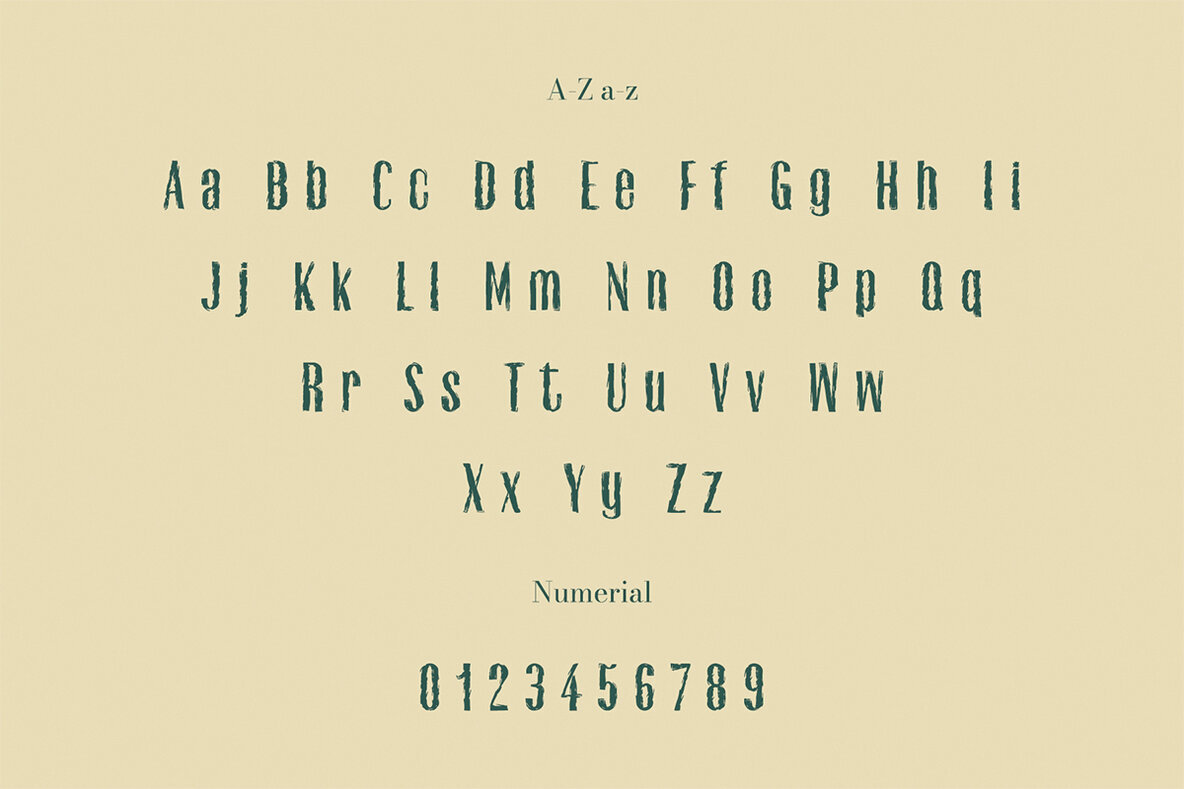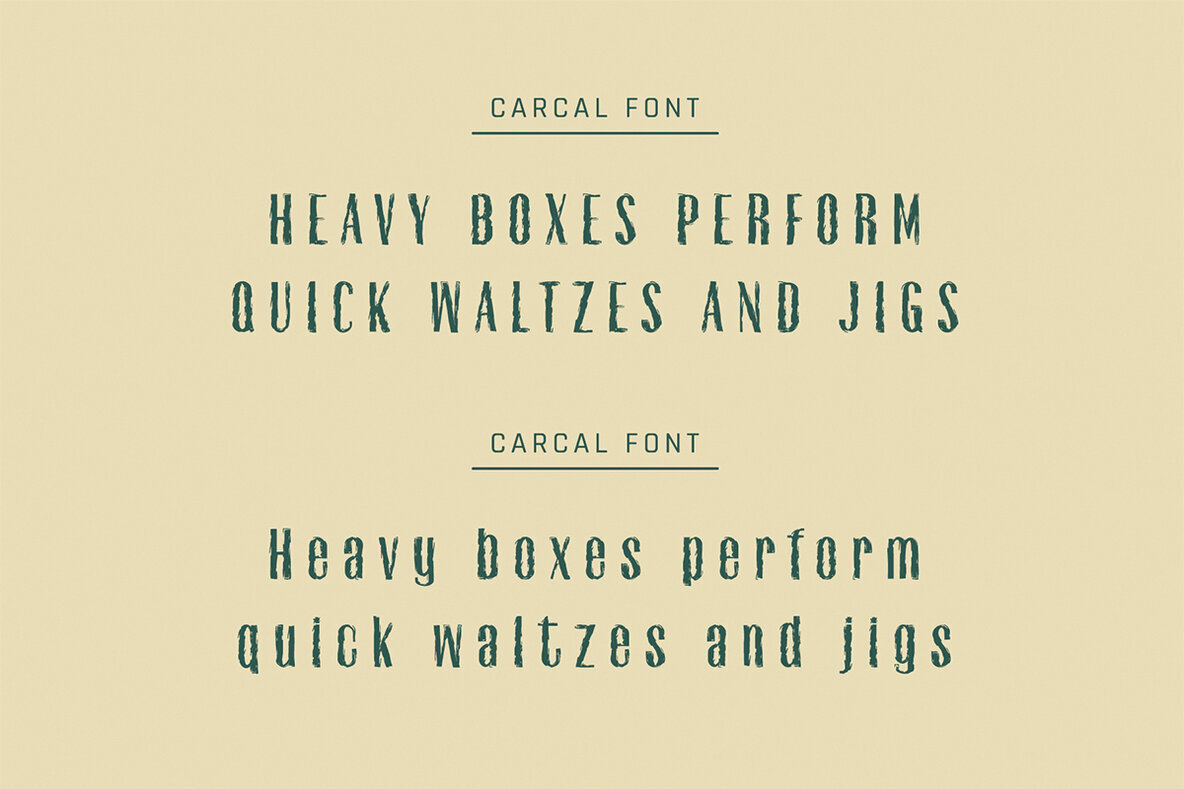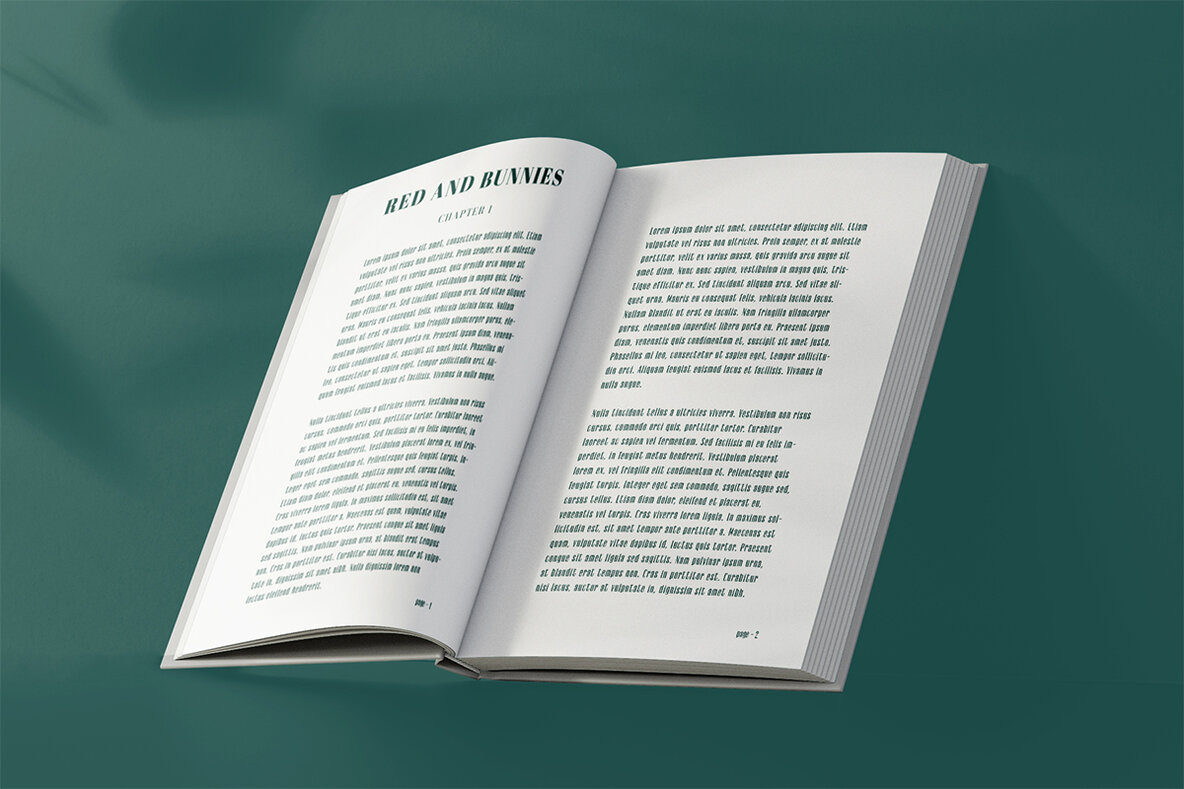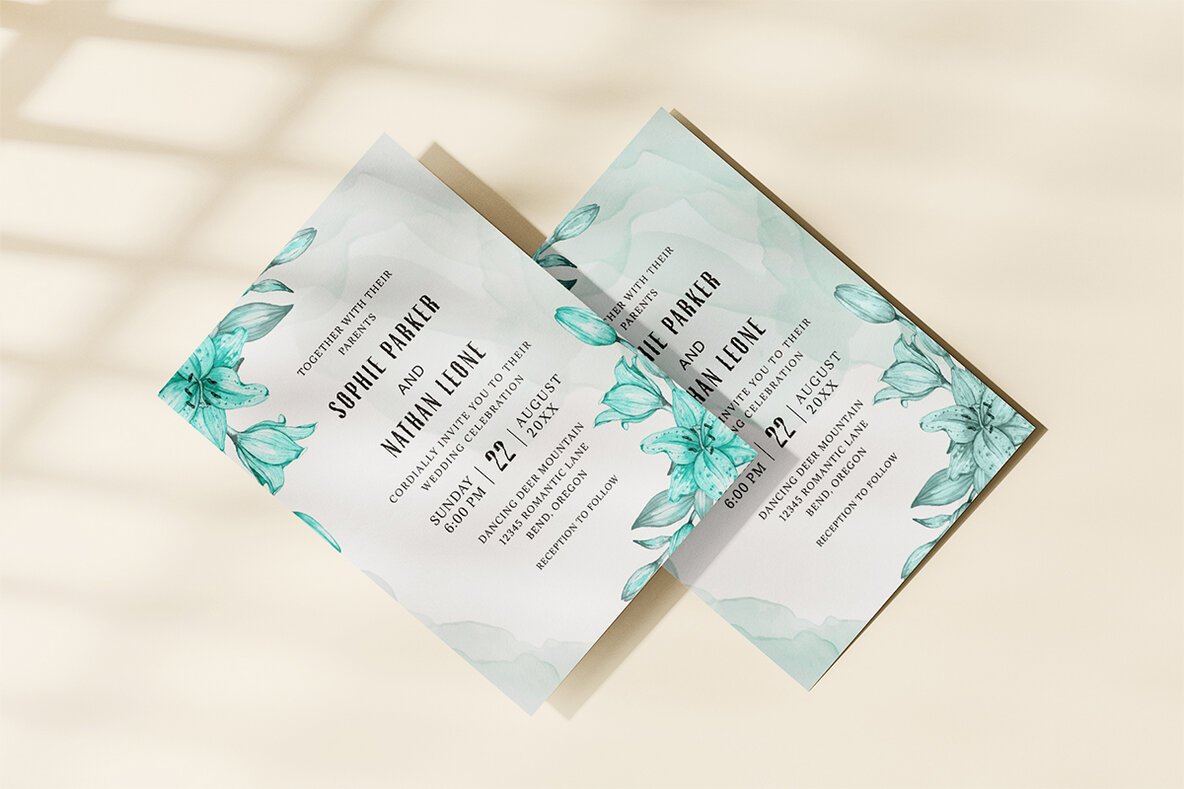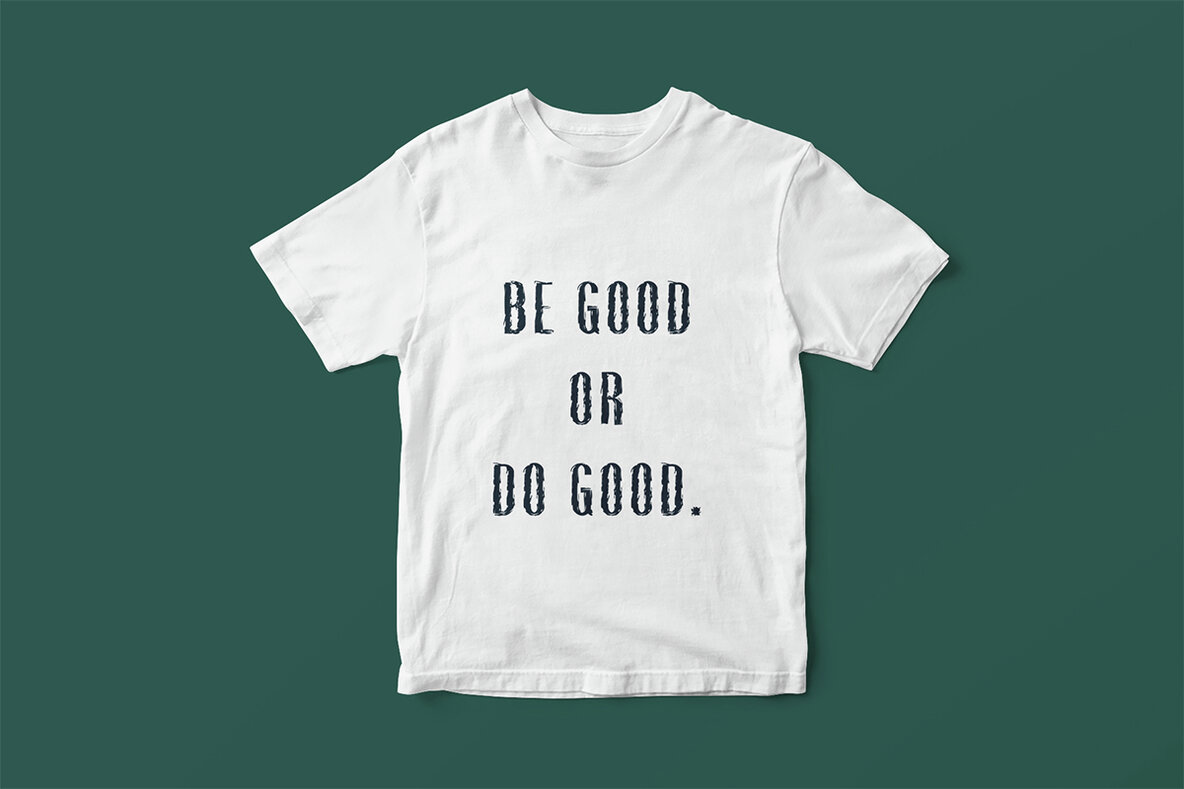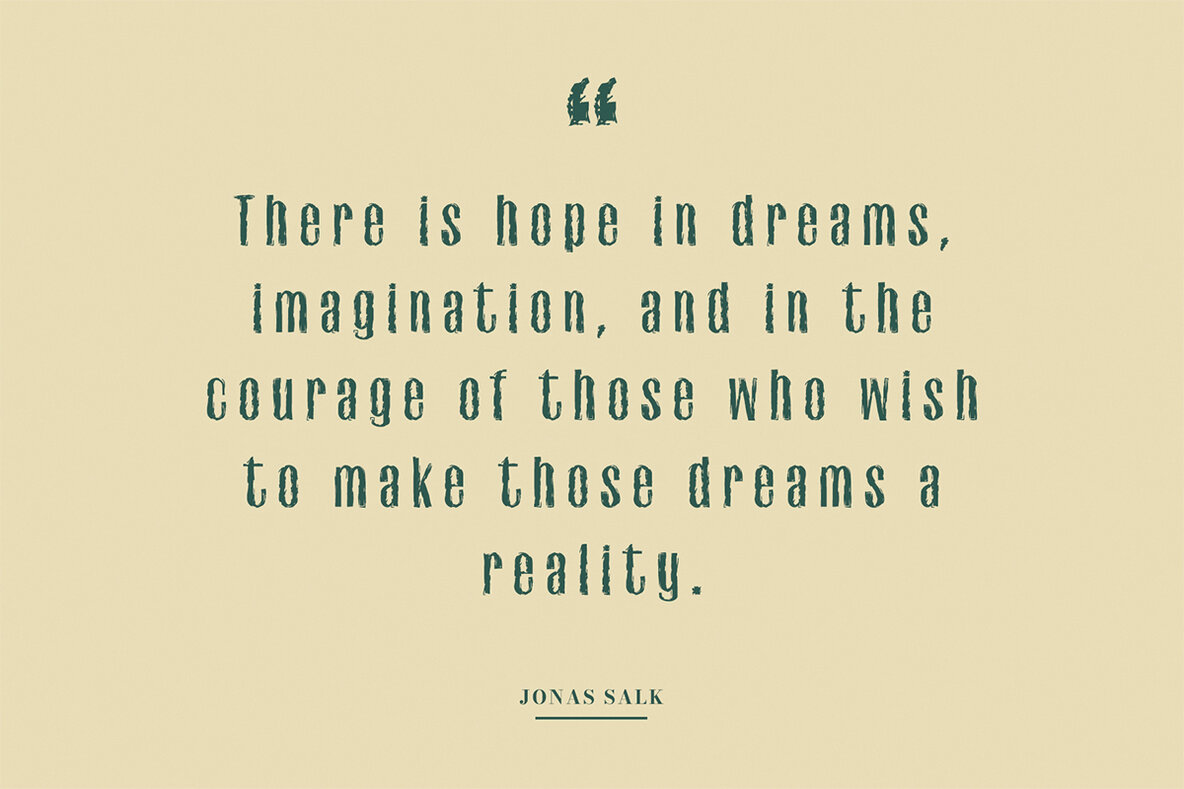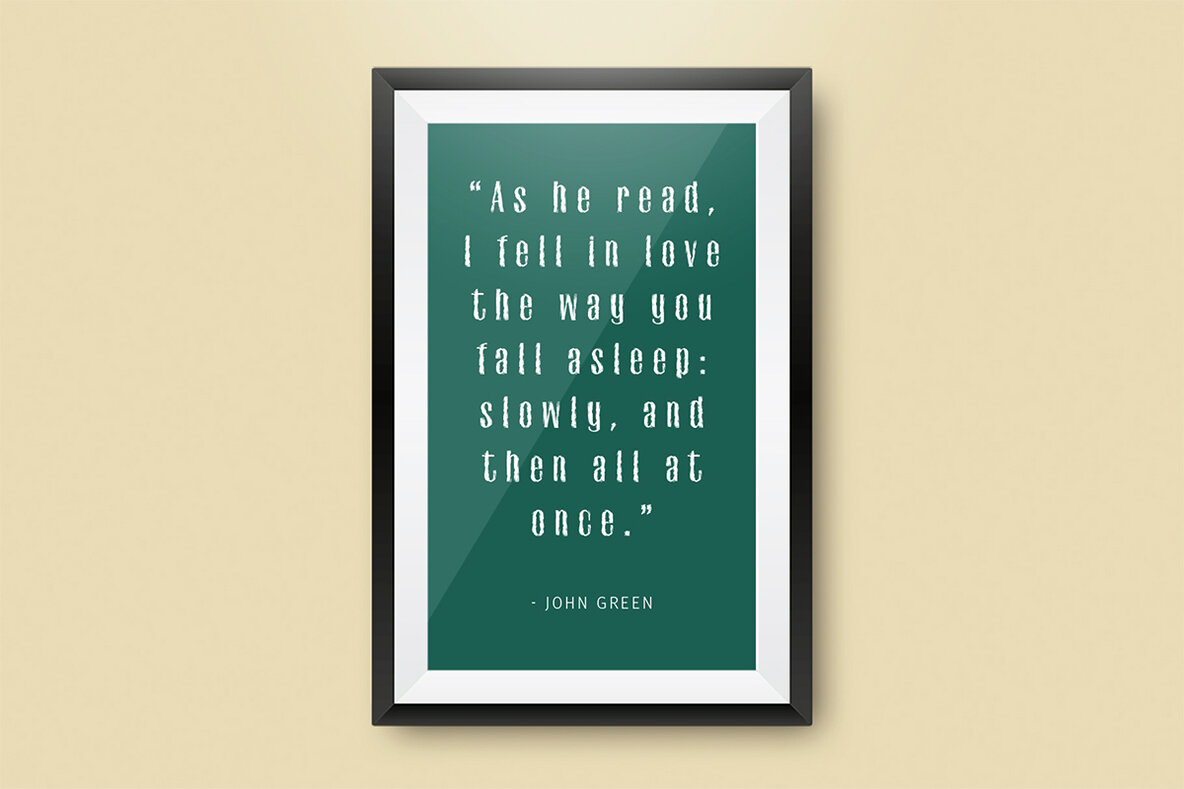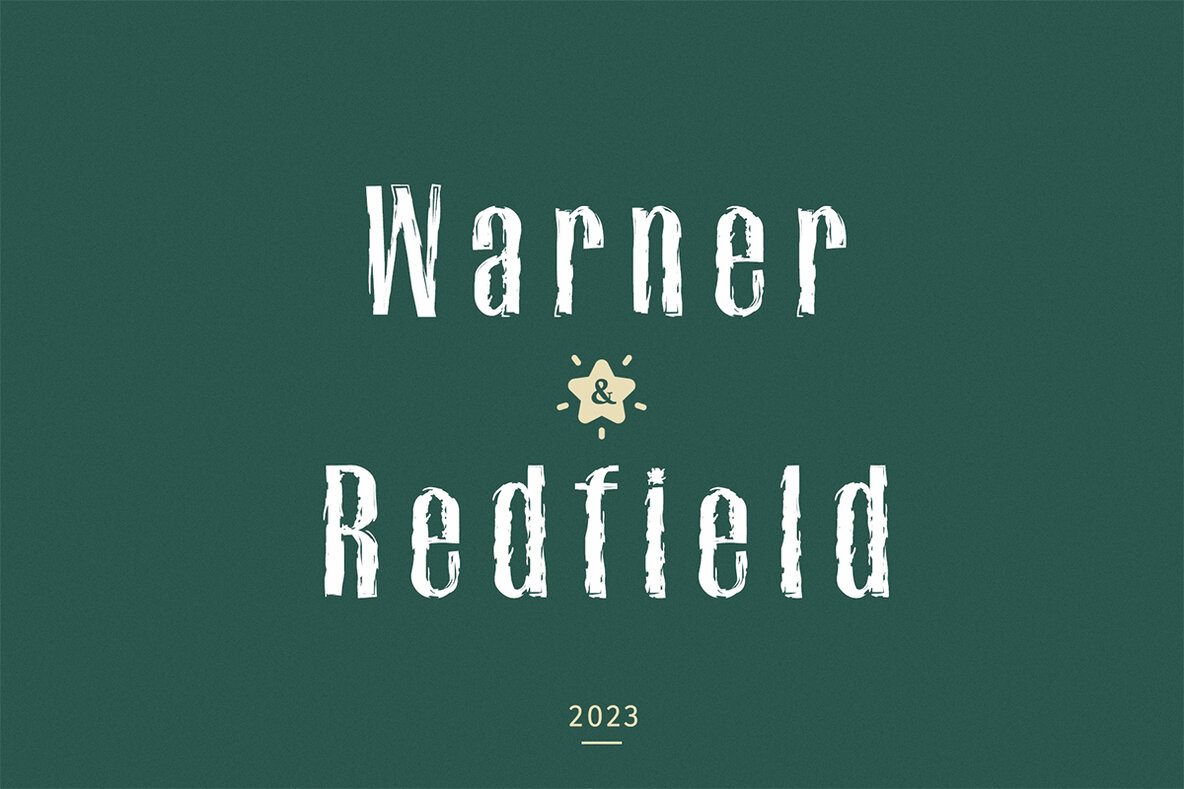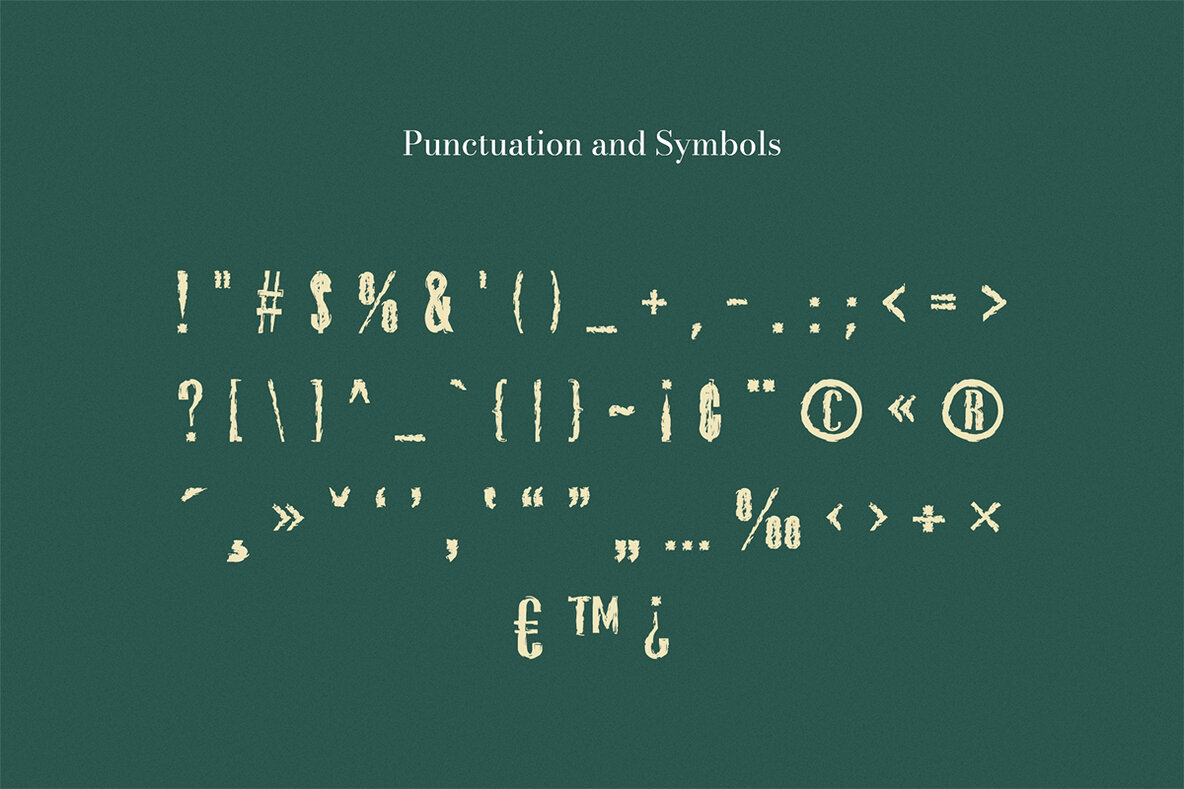
Gacoki Font
Gacoki Regular
Gacoki is a modern, attractive brush-style typeface with a unique flair, perfect for future projects. This versatile font includes uppercase and lowercase letters, numbers, punctuation, and symbols, and supports multiple languages. The distinctive appearance of Gacoki makes it ideal for a wide range of design tasks, such as packaging, presentations, logos, headlines, posters, branding, quotes, magazines, web layouts, advertising, and invitations.
The Gacoki font is comprehensive, featuring an extensive array of supported characters, including multilingual options and special symbols. With its bold and stylish design, Gacoki can enhance various creative endeavors, providing designers with a functional and aesthetically pleasing typeface that stands out in numerous applications. Whether you're working on editorial layouts, book covers, or promotional materials, Gacoki offers the versatility and elegance needed to make your projects compelling and professional.